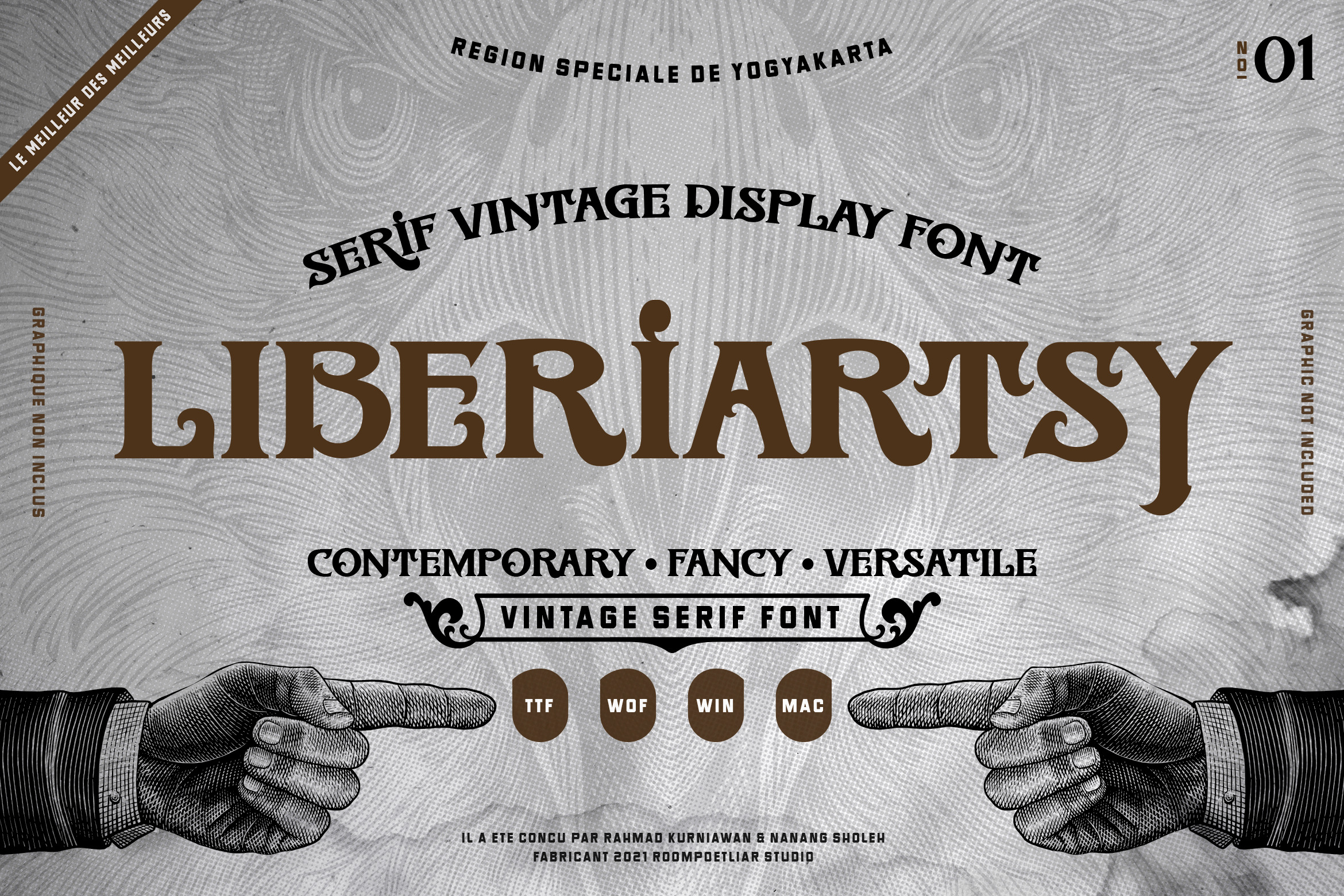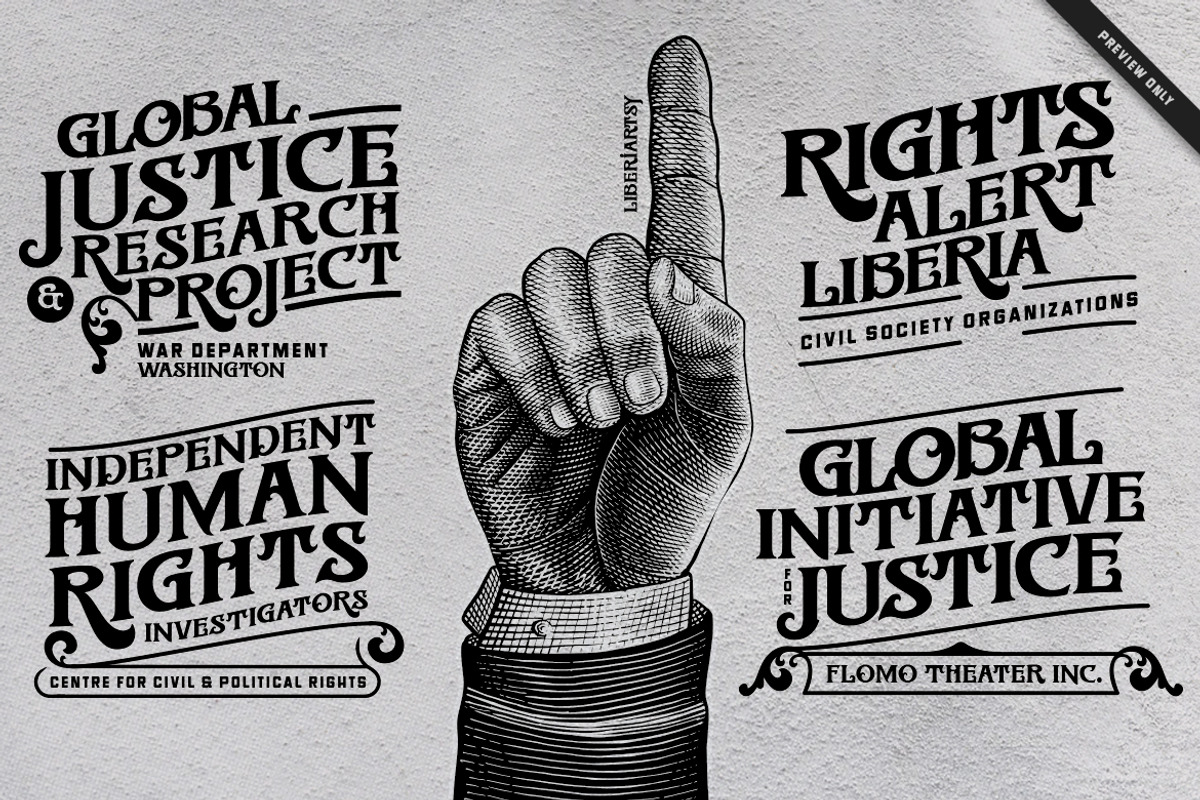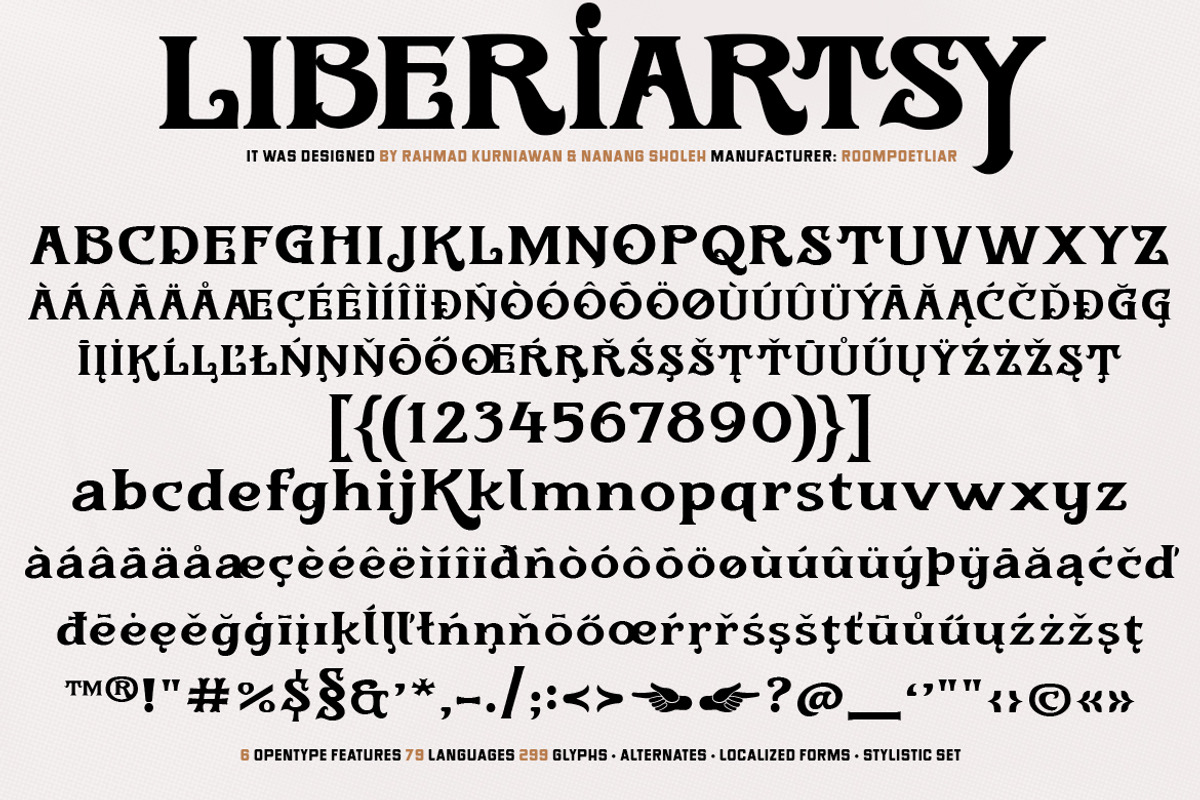
Liberiartsy Vintage Font
Liberiartsy Vintage Display Font. Vintage font with a well-balanced contemporary, fancy, unique, and versatile vintage serif font. It is a serif display font suits best for branding projects, logos, wedding designs, social media posts, advertisements, product packaging, product designs, label, photography, watermark, invitation, stationery, Religion events, signage board, and any projects. It makes with a high level of legibility.